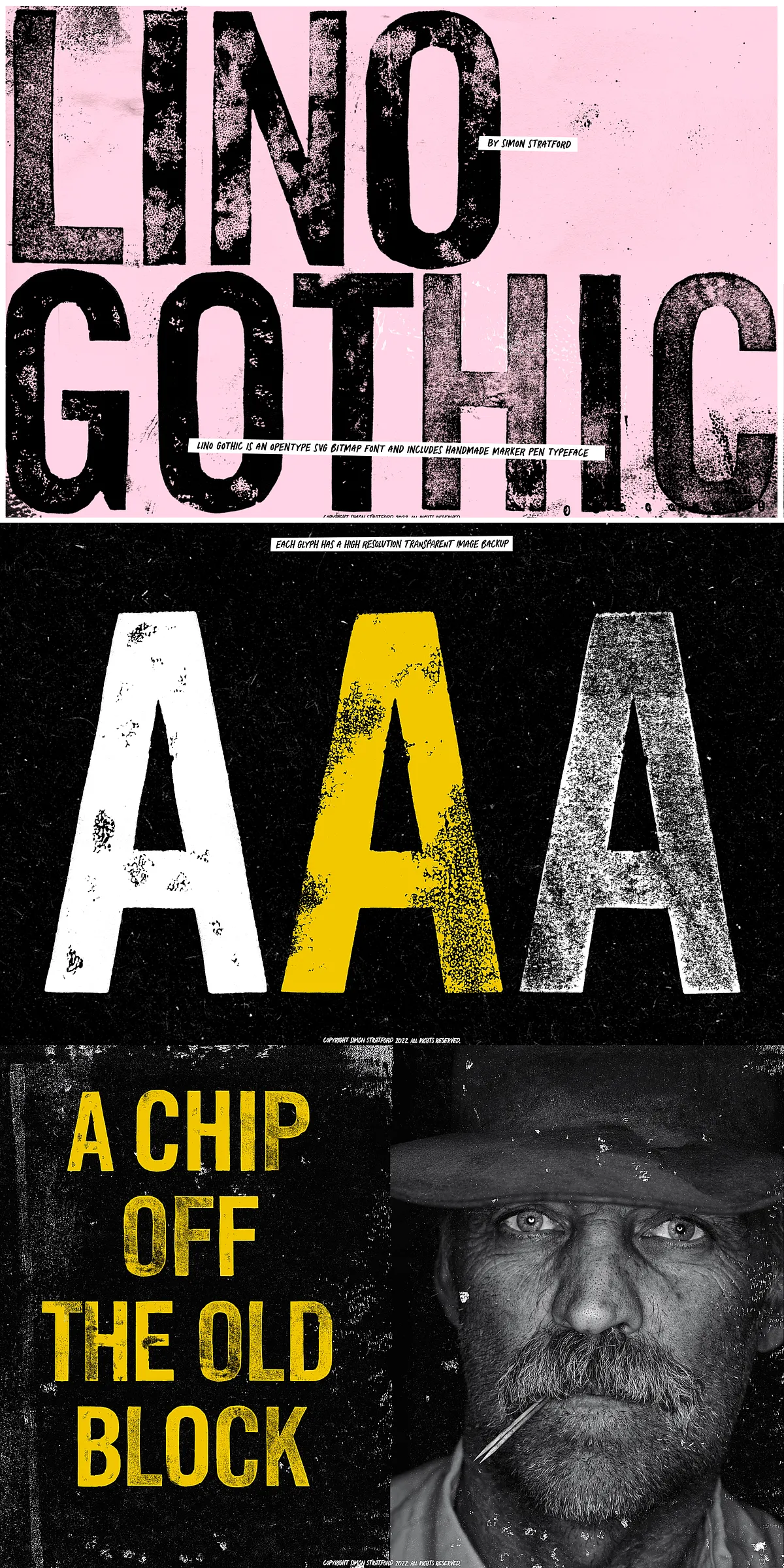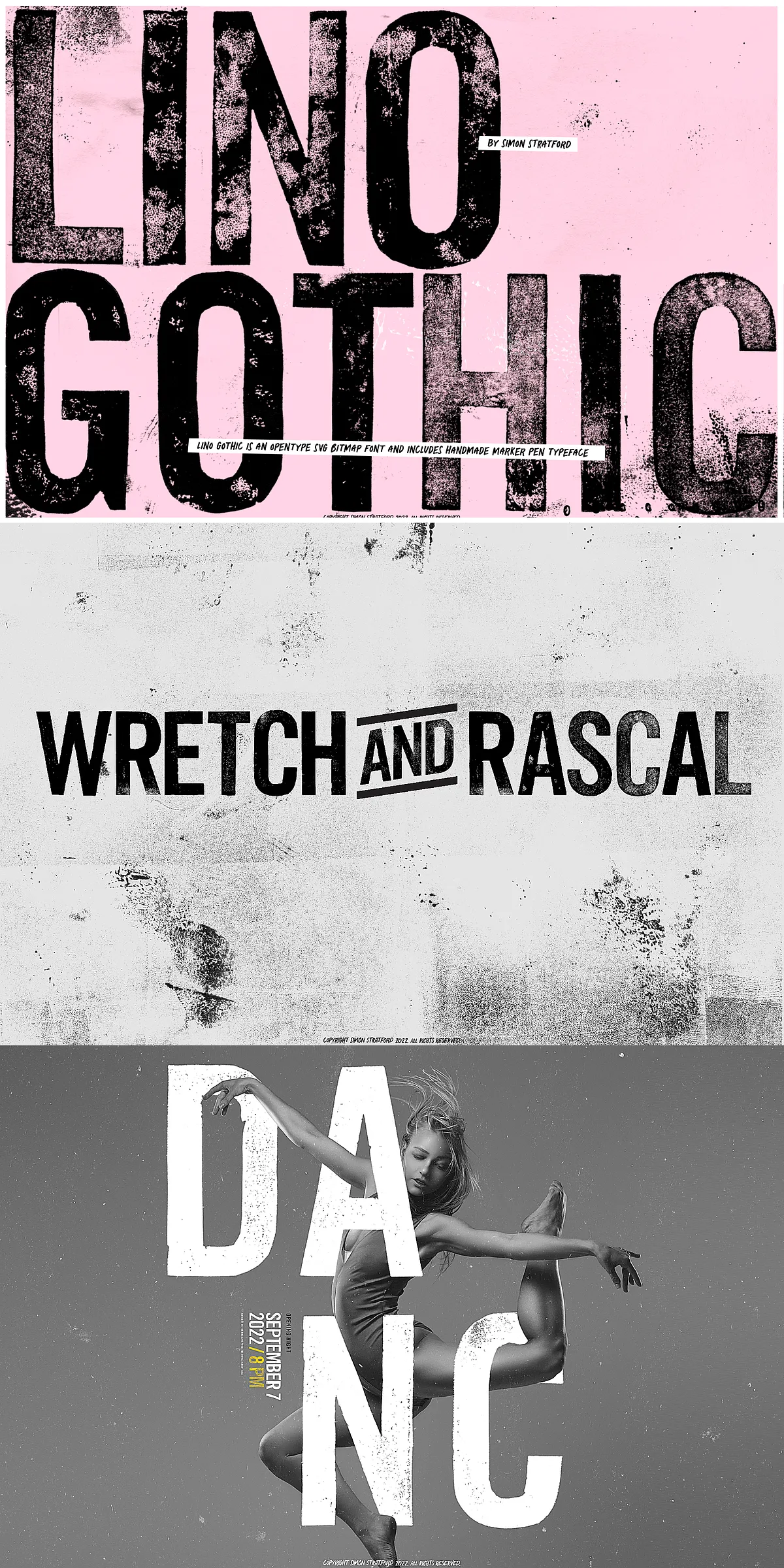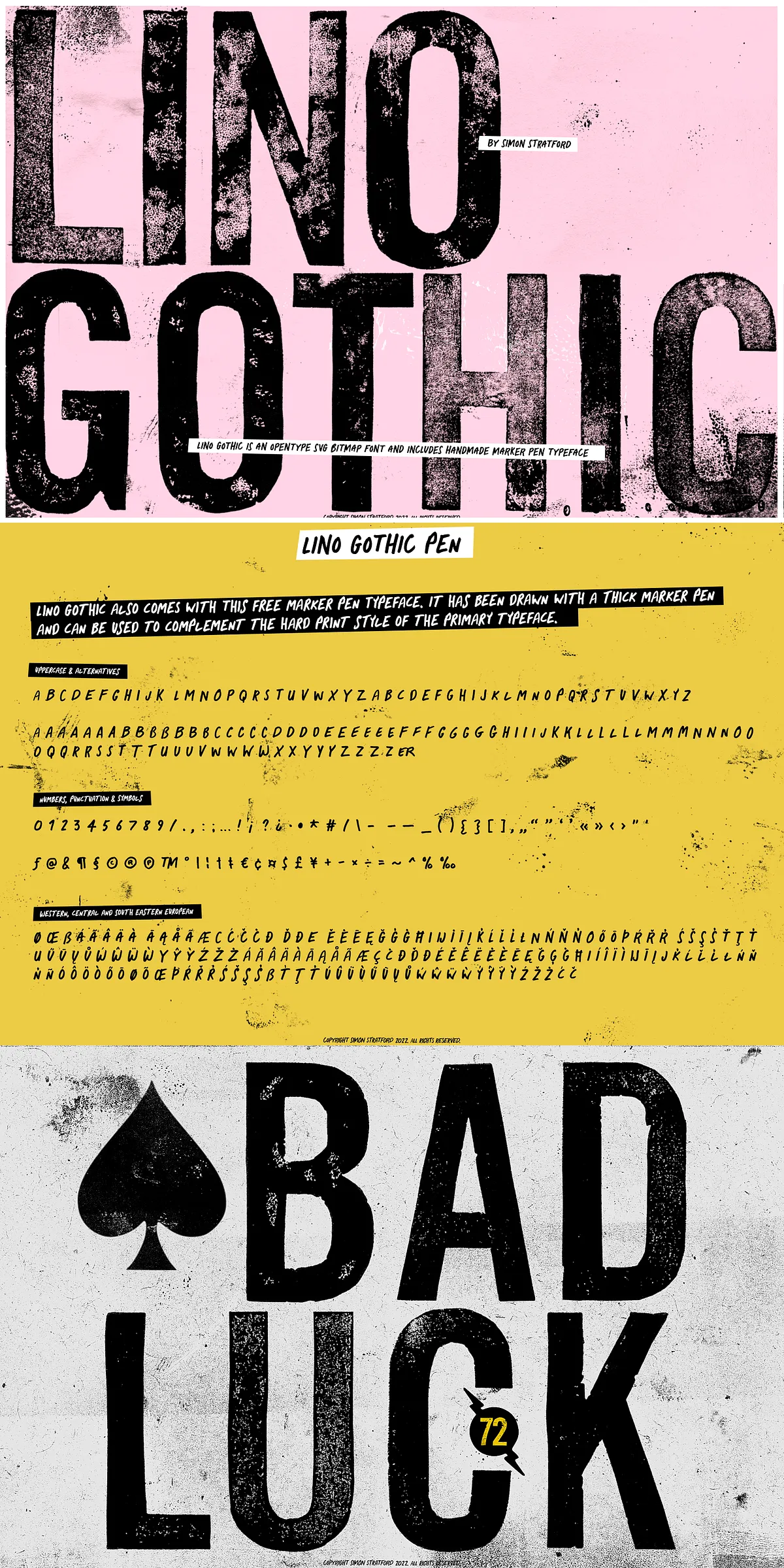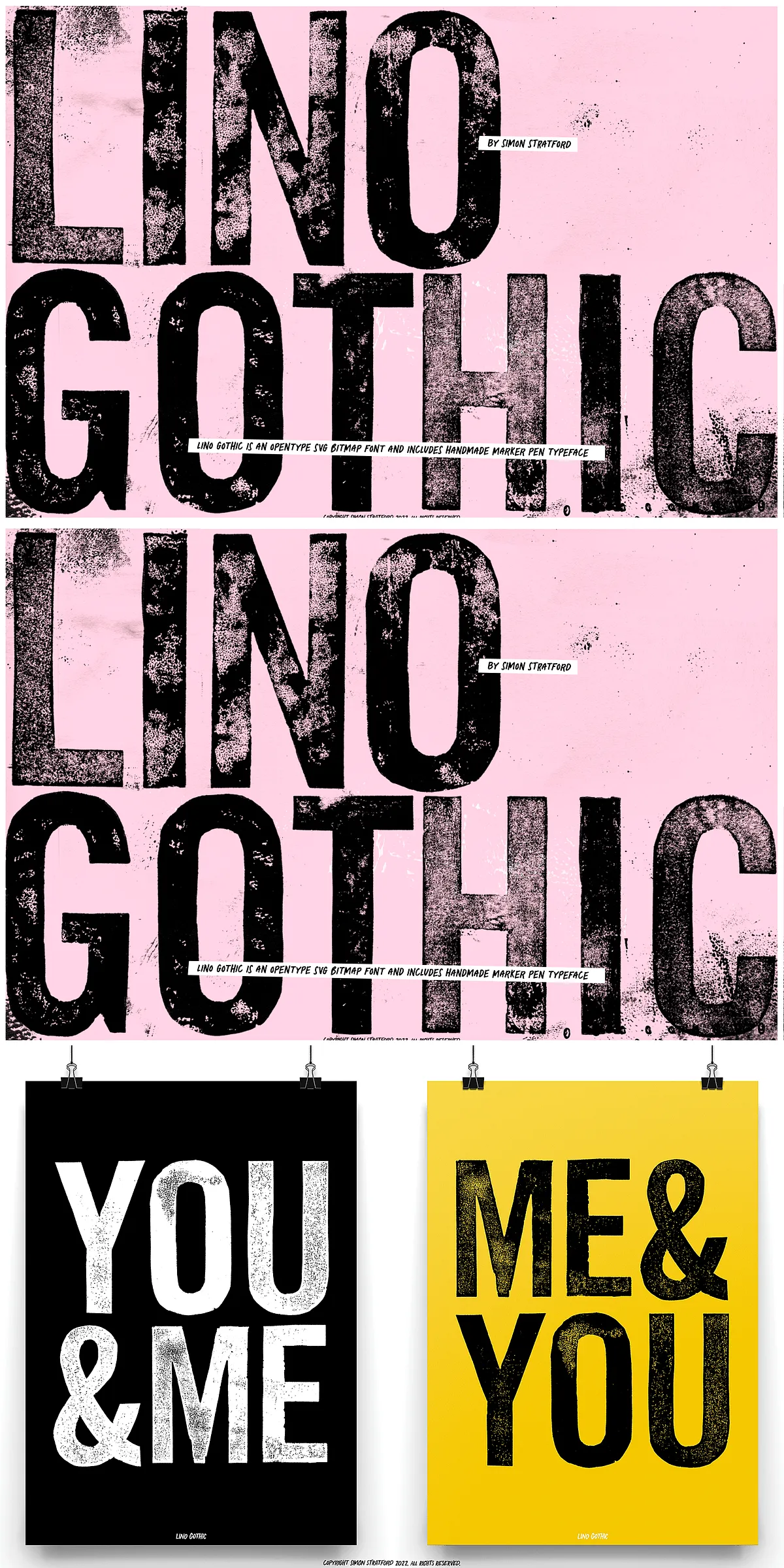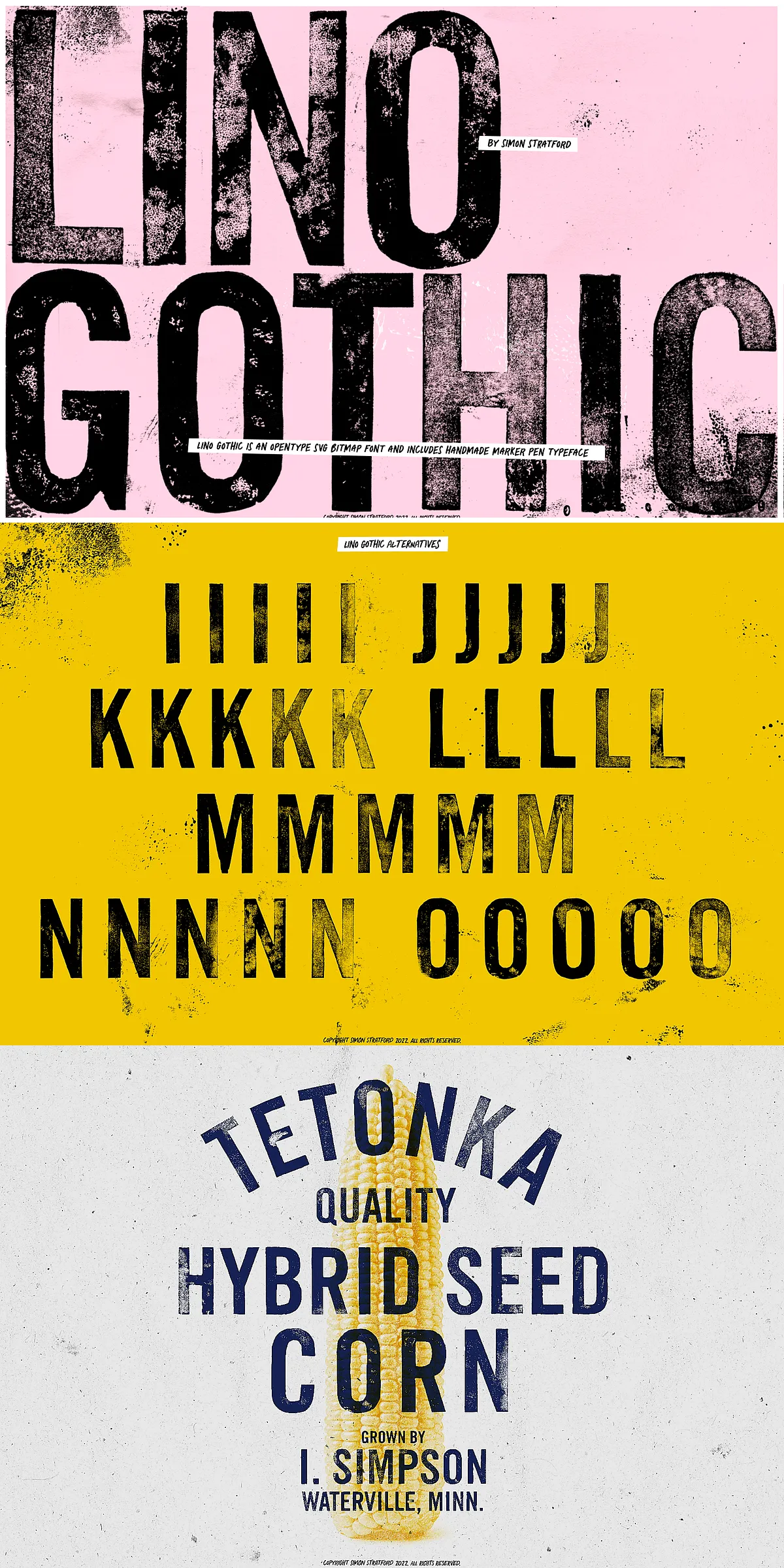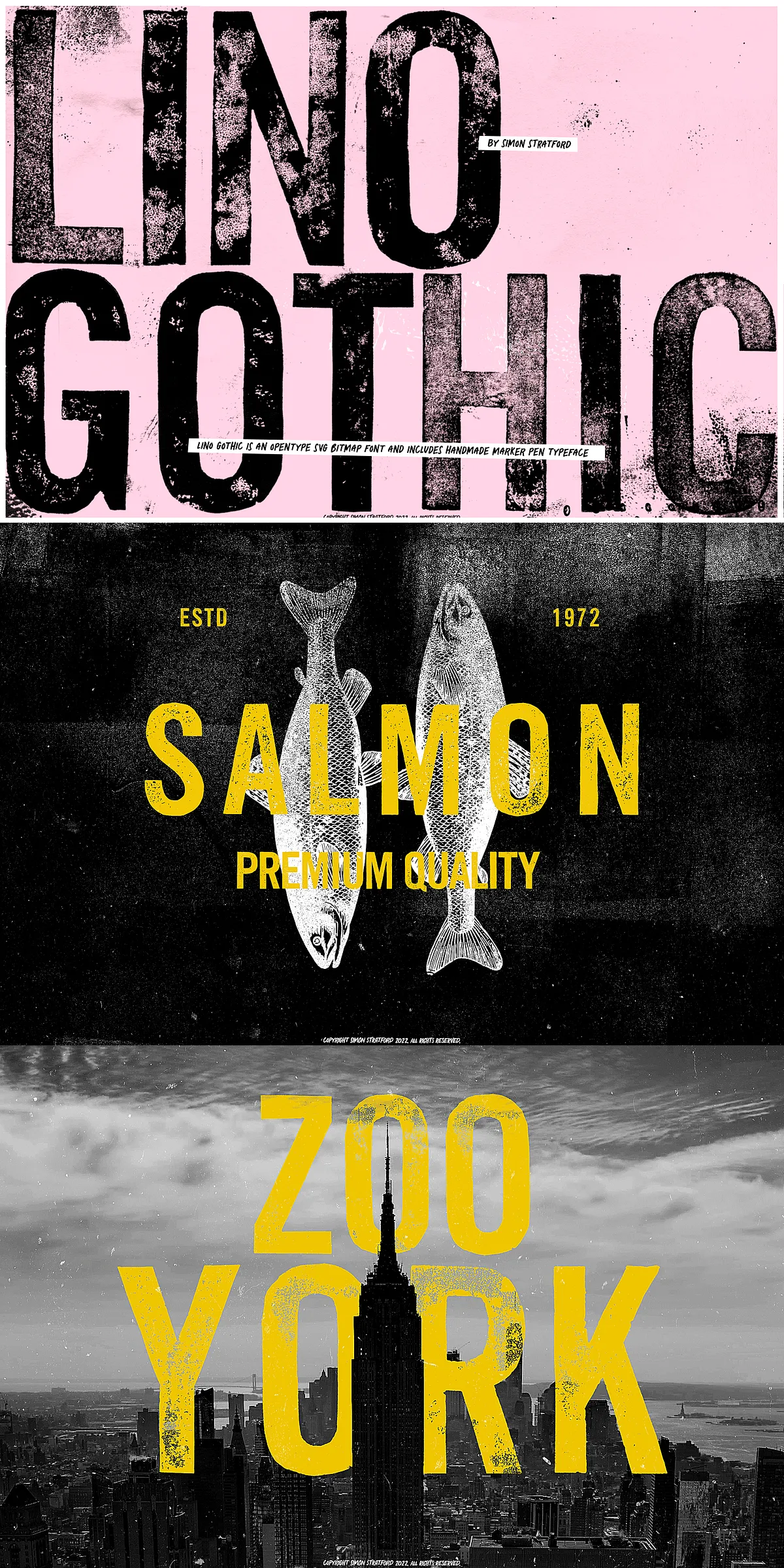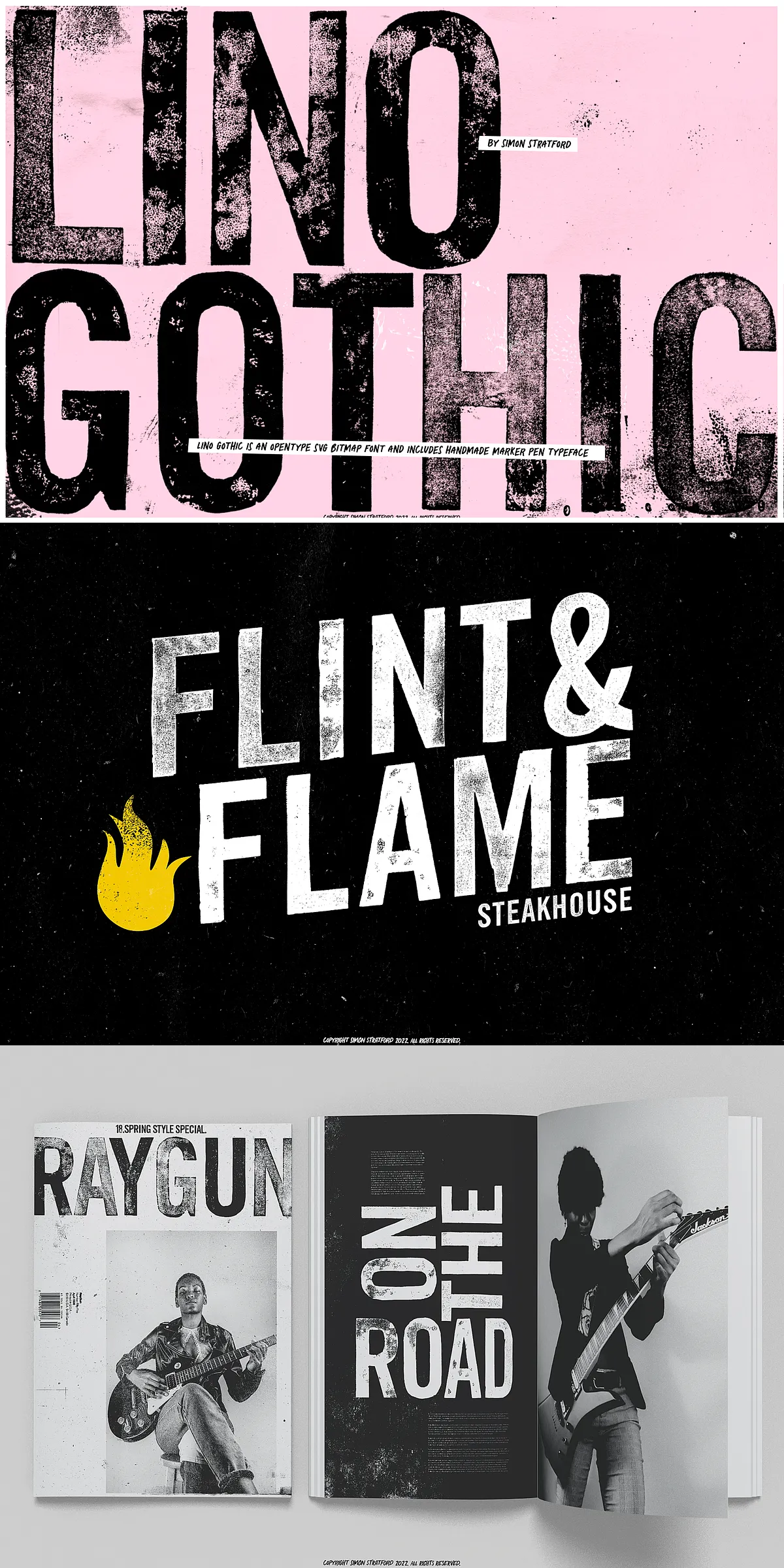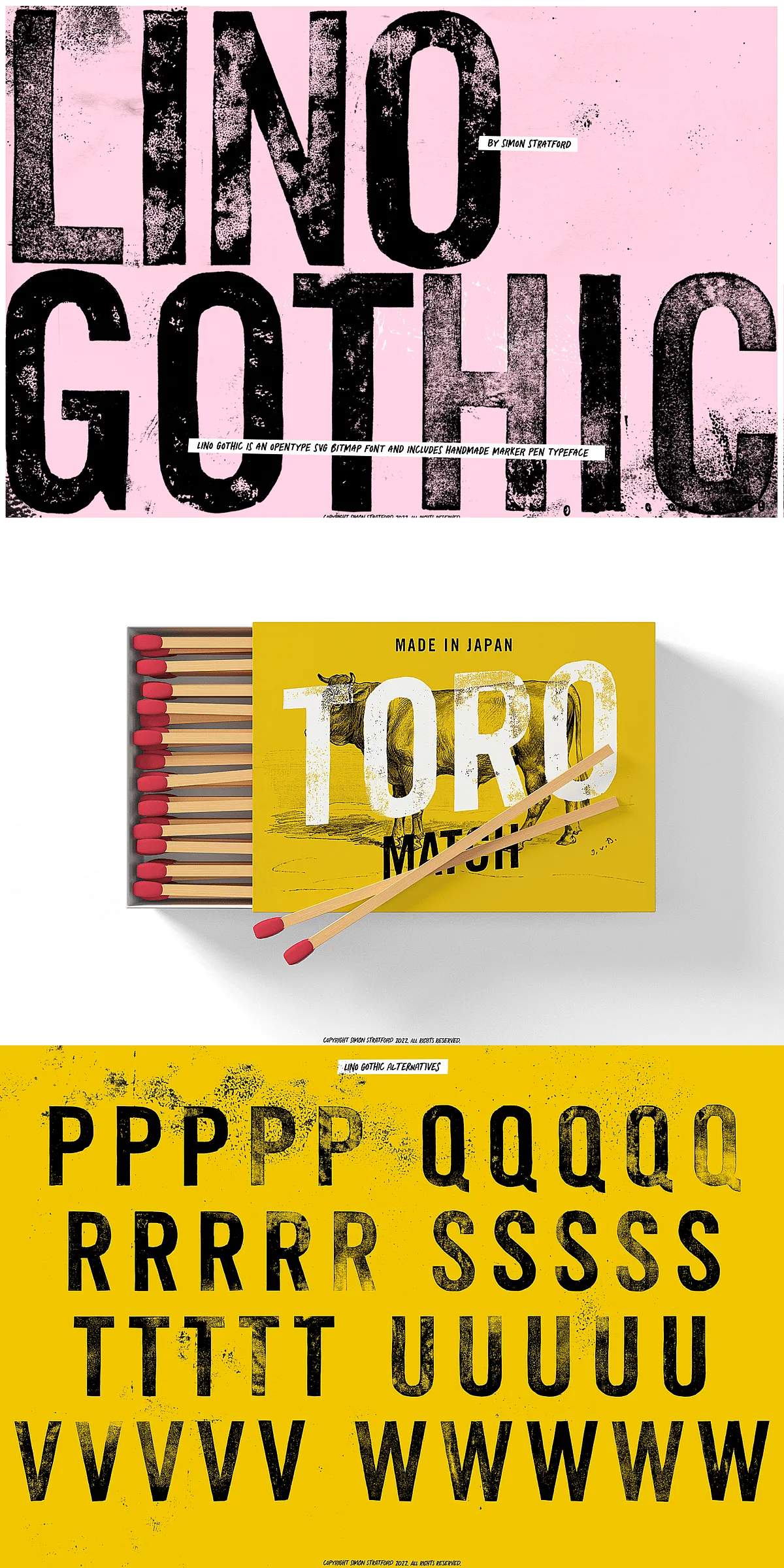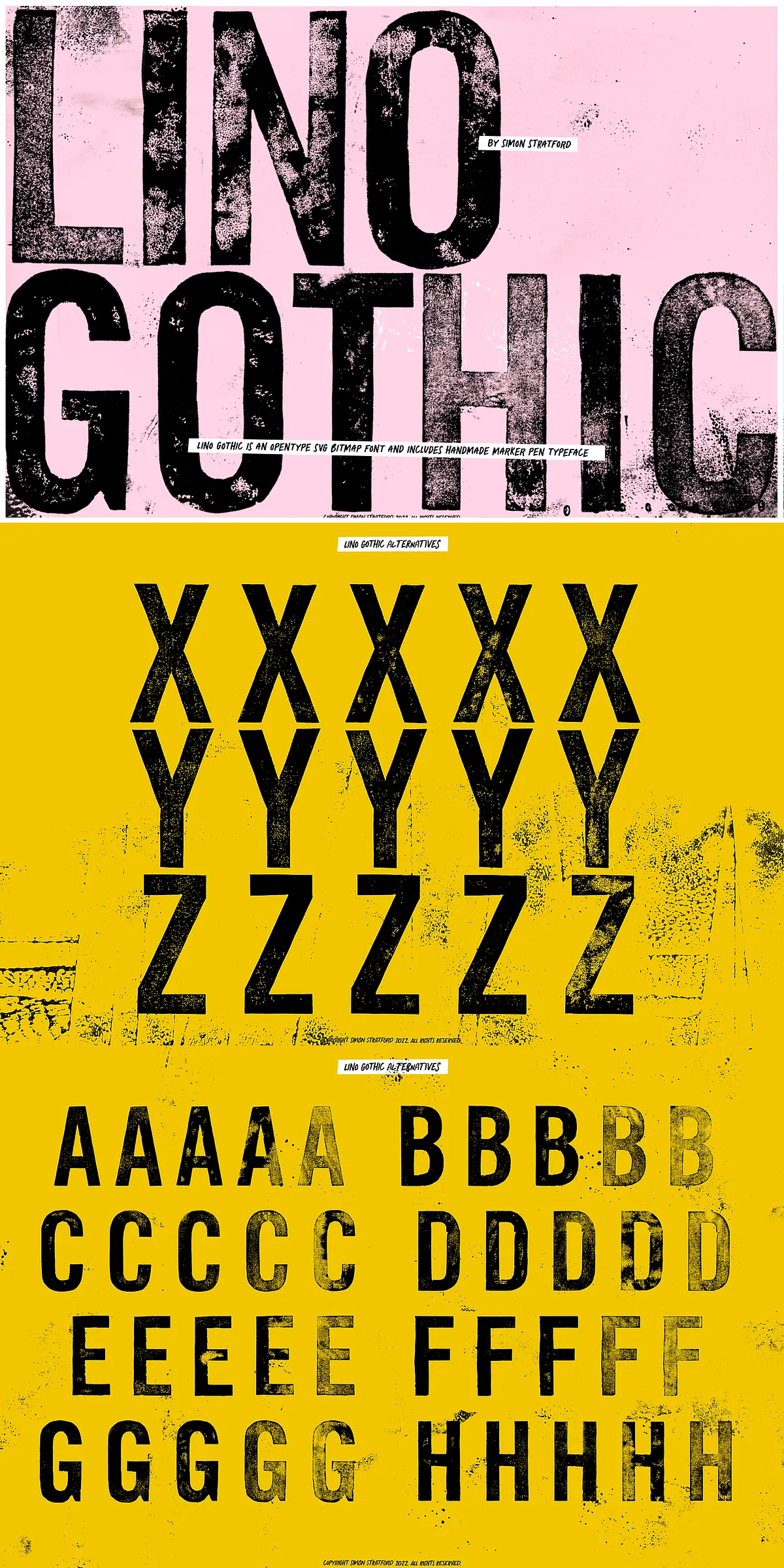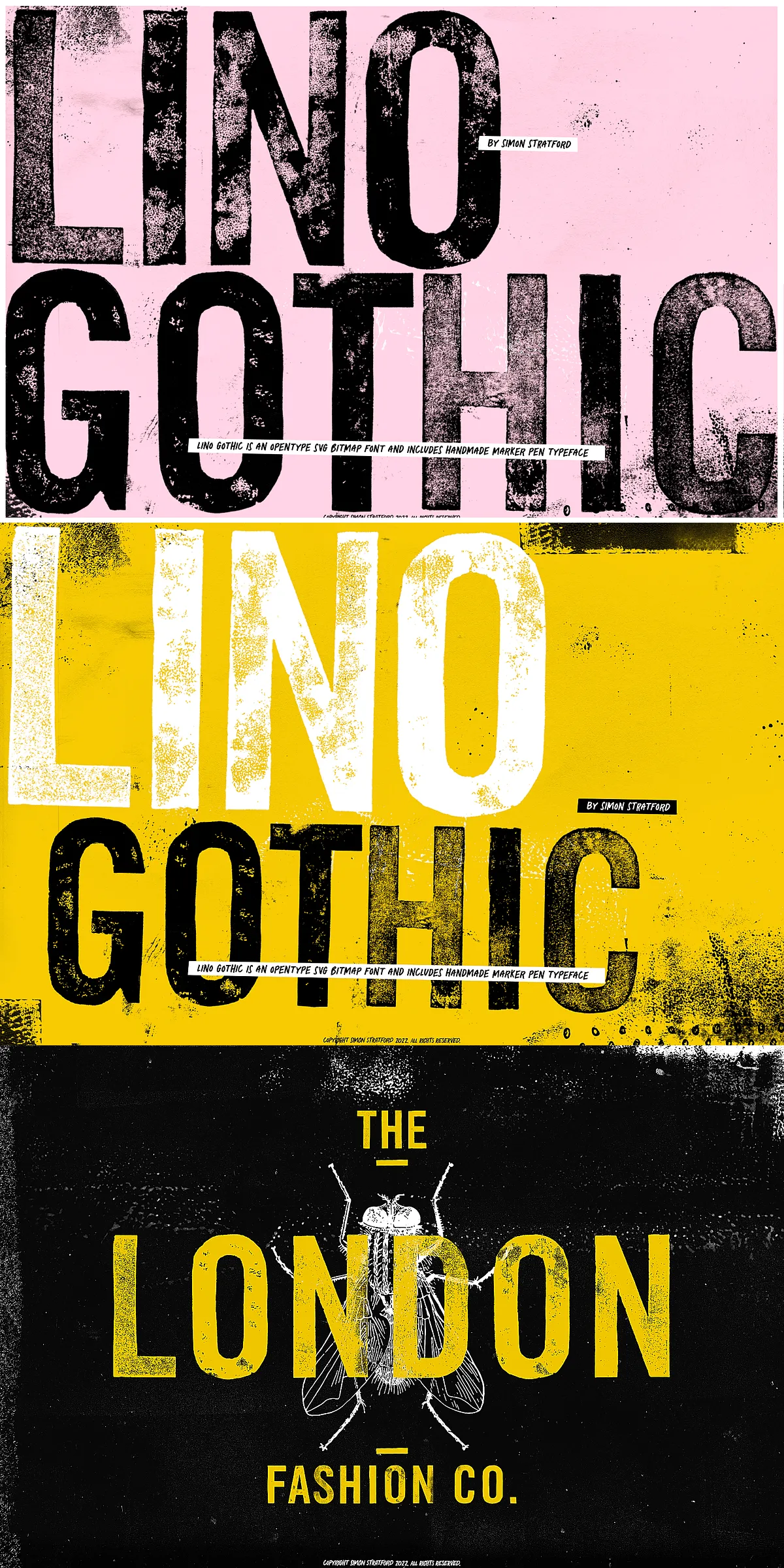
Display Font Lino Gothic
Lino Gothic is an innovative display font that captures the true spirit of traditional letterpress printing through a modern digital medium. Created by layering multiple prints from hand-cut linocuts, this font offers a genuine weathered woodtype effect that adds authentic texture and a vintage feel to any creative project. Designed not only to reflect the charm of handcrafted type but also to leverage cutting-edge OpenType SVG bitmap technology, Lino Gothic redefines display fonts with its remarkable detail and versatility. It includes an additional handmade marker pen style script font, enhancing its utility for diverse design needs.
Explore the Unique Features of Lino Gothic
The most outstanding feature of Lino Gothic lies in its use of the OpenType SVG bitmap font format, which supports multiple versions of each uppercase letter. Specifically, every character from A to Z has up to five alternate shapes, each displaying slight variations reminiscent of multiple individual letterpress prints. This richness in character alternation allows designers to mix and match letterforms to generate a truly bespoke and dynamic letterpress appearance, giving every word a unique personality that classic vector fonts cannot replicate.
How the Letterpress Effect Enhances Your Design
Unlike traditional vector fonts which are limited to uniform color and solid fills, Lino Gothic incorporates transparency and thousands of tonal variations within black and gray shades. This results in a textured, three-dimensional look that beautifully mimics the imperfections and subtle differences found in hand-printed letterpress work. Such intricate detail imbues designs with depth and authenticity, making it ideal for vintage-styled branding, posters, packaging, and more.
Additional Value: Handmade Marker Pen Typeface Included
Beyond its primary letterpress vector and bitmap fonts, Lino Gothic also includes a handcrafted marker pen style typeface. This addition expands the font’s application range by offering a more casual, organic handwritten complement, perfect for adding contrast or emphasis within the same design framework. Together, these fonts enable designers to build visually compelling layouts featuring both authentic vintage and expressive handmade aesthetics.
Why Choose Lino Gothic for Your Display Typography Needs?
Lino Gothic stands apart as a boldly textured, deeply detailed, and genuinely authentic letterpress display font that energizes projects with a handcrafted touch. It is especially suited for designers and creative professionals looking to incorporate retro, vintage, and artisanal typographic effects without sacrificing modern digital flexibility. Whether you are designing for posters, brand identity, packaging, apparel, or editorial use, Lino Gothic’s rich textures and multiple alternatives ensure every piece communicates originality and craft.